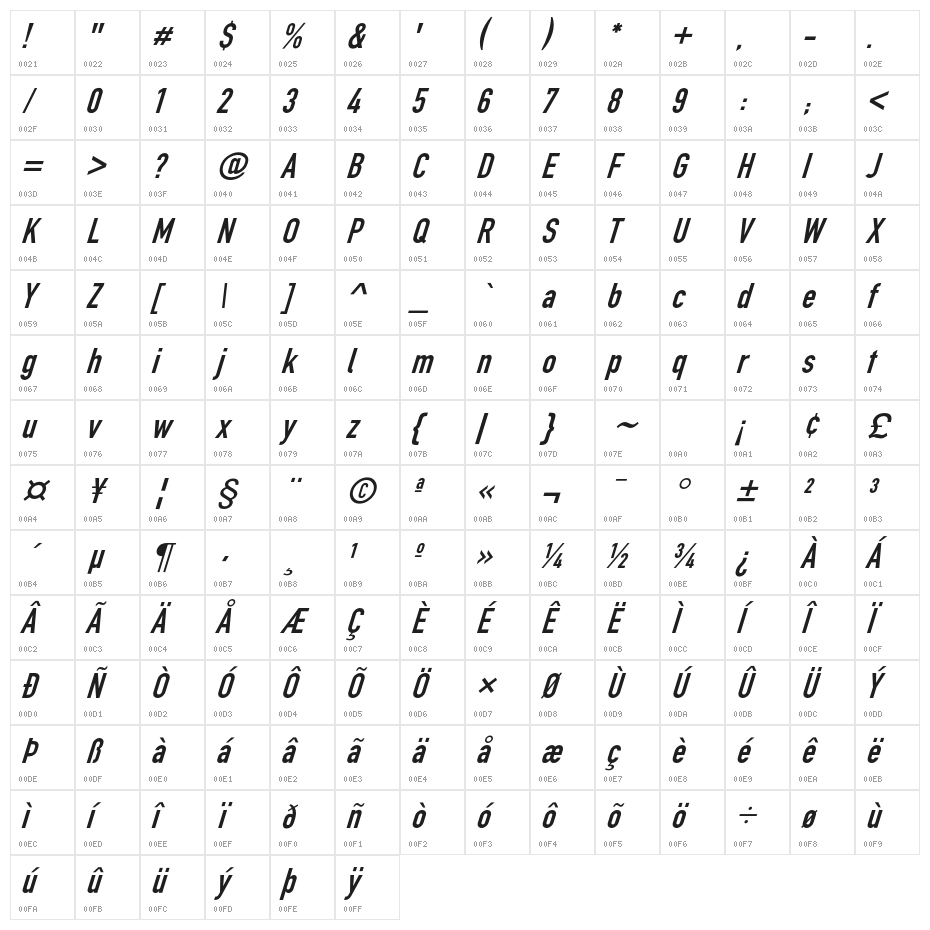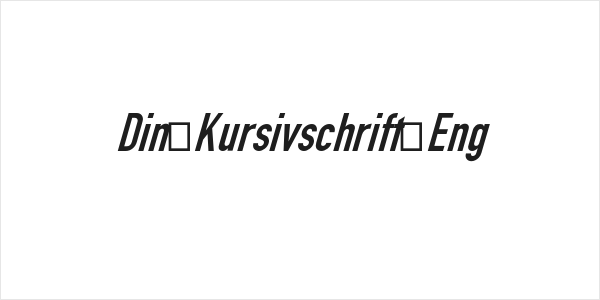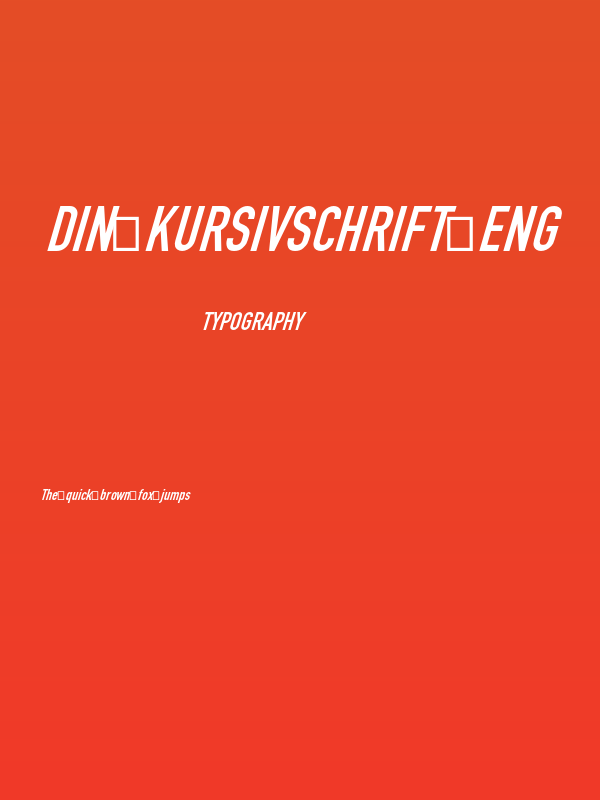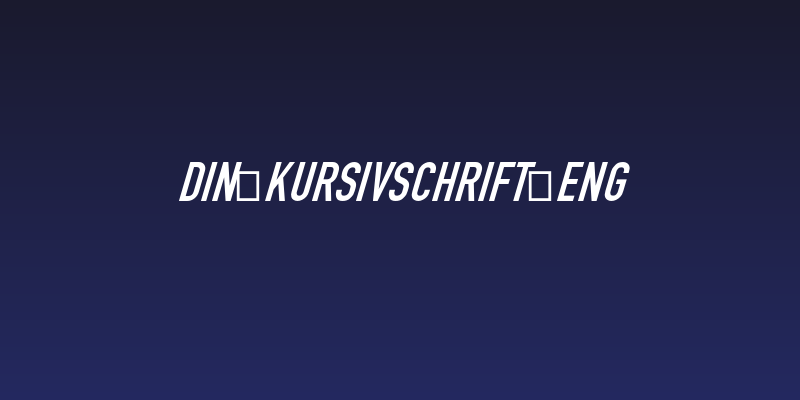
Din Kursivschrift Eng Font
Din Kursivschrift Eng Description
This font features a clean, modern design with a slight slant, giving it an italicized appearance. The characters are bold and have a uniform stroke width, contributing to a strong and assertive look. The uppercase letters are tall and narrow, while the lowercase letters maintain a consistent height, enhancing readability. Numbers are clear and distinct, matching the style of the alphabet. The special characters are well-defined, maintaining the font's cohesive style. Overall, this font exudes a professional and contemporary feel, suitable for various design applications.
| Use Case | Headlines, Logos, Signage |
| Proposed Projects | Ideal for branding, advertising, headlines, and signage where a modern and assertive look is desired. |